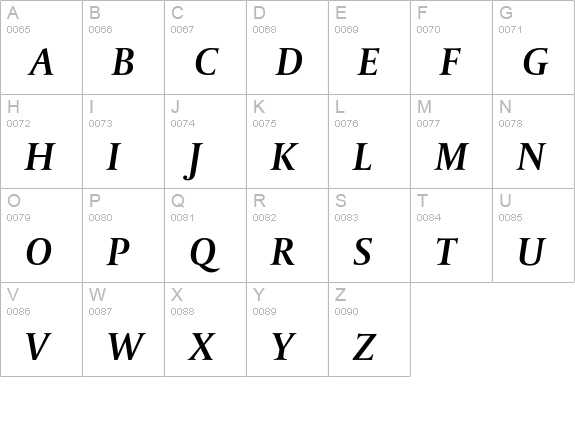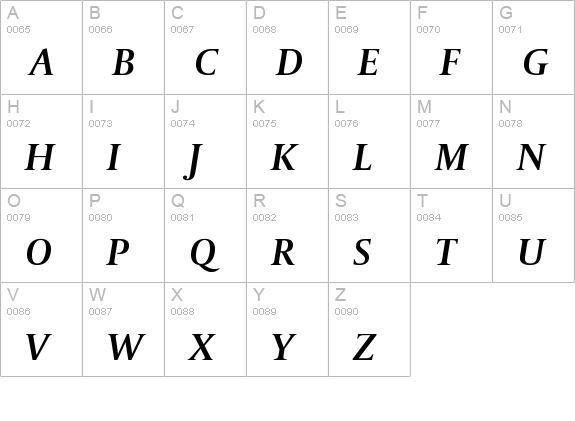
DTLParadoxST-BoldItalic Font Details
The DTLParadoxST-BoldItalic font is a striking and dynamic typeface that effortlessly combines boldness with elegance. Its italicized style adds a touch of sophistication, making it perfect for both professional and creative projects. This font is ideal for headlines, titles, and other design elements that require a strong visual impact. What sets DTLParadoxST-BoldItalic apart is not only its unique design, but also the fact that it is available for free download at FontsMarket.com. This means that you can easily access and use this stylish font in your projects without any cost involved. Don't miss out on the opportunity to enhance your designs with the bold and italic beauty of DTLParadoxST-BoldItalic font - download it today and elevate your creative work to the next level.